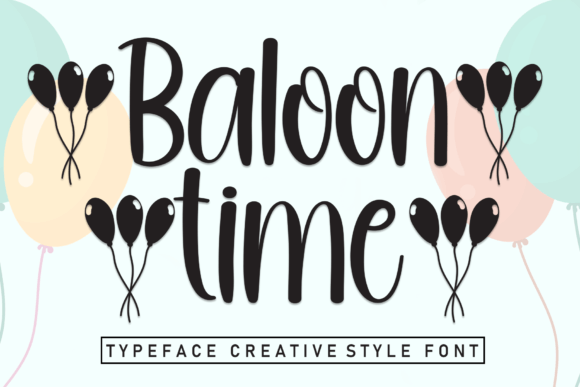
Introducing Baloon Time Font, a beautiful script font that will add a touch of joy and enchantment to your designs. This font is perfect for creating wedding invitations, greeting cards, posters, logos, branding, and social media posts. It's also great for adding a personal touch to your digital projects, such as blog posts and emails.
The Baloon Time Font is characterized by its playful and whimsical style, with bouncy, loopy letters that seem to dance across the page. Its easy-going charm makes it perfect for projects that need a lighthearted and inviting feel. Whether you're creating a design for a special occasion or simply want to add some fun to your work, Baloon Time Font is the perfect choice.
This font was meticulously crafted by William Jhordy, a talented font designer with a passion for creating resources that help designers bring their visions to life. Every curve and line in Baloon Time Font has been carefully drawn and refined to ensure that it combines creative flair with functionality. As a result, it's a font that's both pleasing to the eye and easy to read, making it an excellent choice for a wide range of design projects.
Here are just a few reasons why you'll love using Baloon Time Font:
* **Versatile:** The Baloon Time Font can be used for a variety of design projects, from wedding invitations to social media posts. Its versatility makes it an essential font for any designer's toolkit.
* **Expressive:** The Baloon Time Font is a highly expressive font that can convey a wide range of emotions, from joy and happiness to playfulness and whimsy. Its unique style will help you create designs that are sure to make a lasting impression.
* **Memorable:** The Baloon Time Font is a font that people will remember. Its distinctive style will help your designs stand out from the crowd, ensuring that your message is seen and remembered.